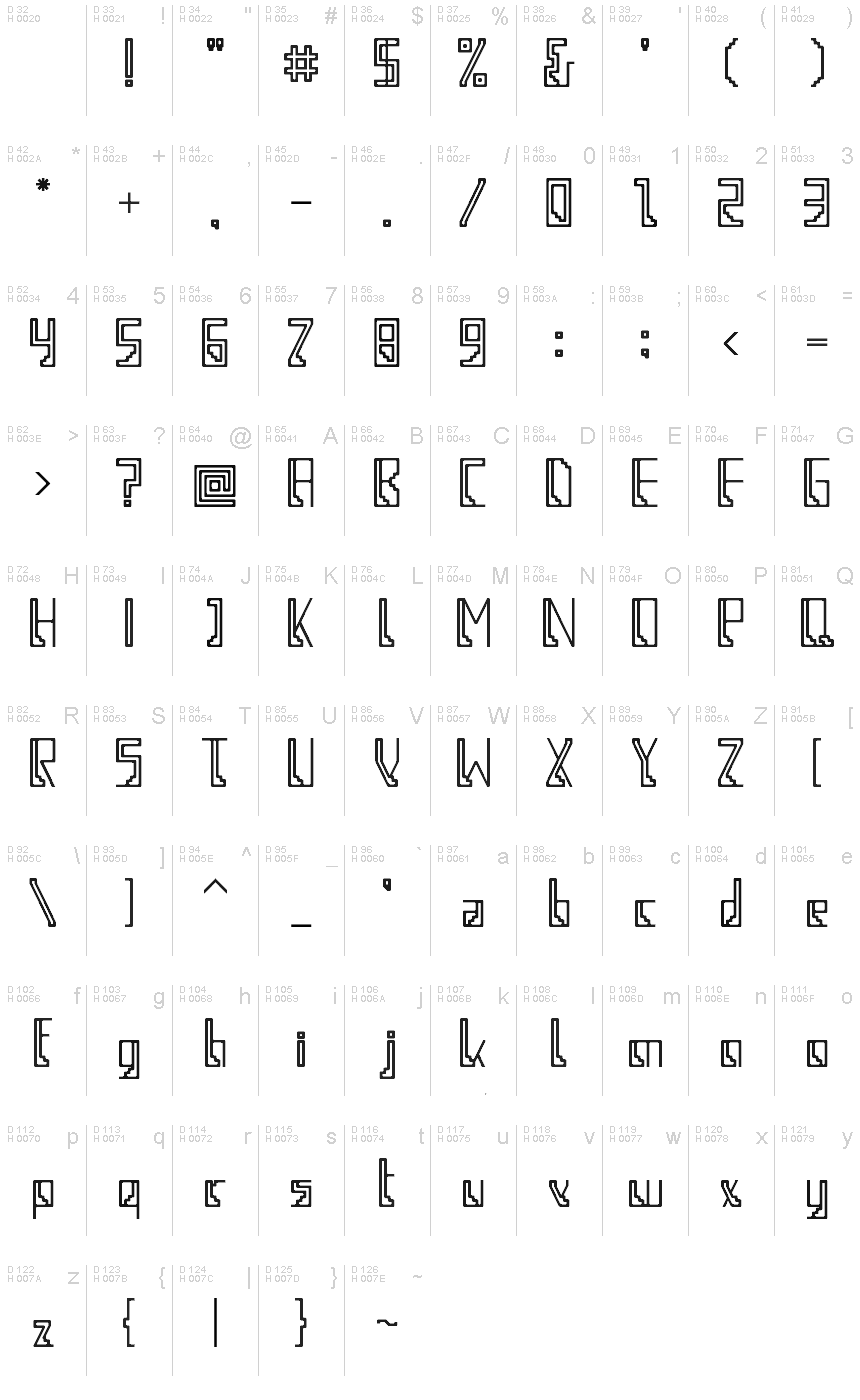
Simple racing line map by SPH Regular
The typeface character that I created was inspired by a racing car map, a simplified flow into a consistent ornament in each letter and number. refers to the theme "Road and Track"